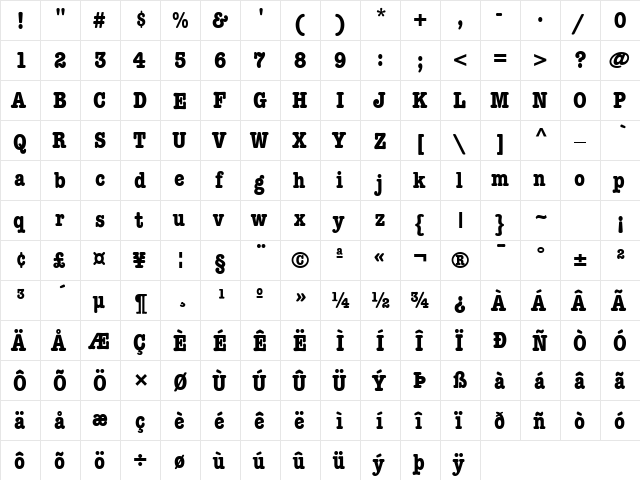
Keyboard CondensedAlt SSi Bold Condensed Alternate Font Preview
Design Context for Keyboard CondensedAlt SSi Typeface
Keyboard CondensedAlt SSi takes a measured approach to typography — its balanced proportions and neutral character make it a reliable workhorse for both digital and print work. The heavy weight commands attention and anchors typographic hierarchies. Its narrow stance lets it pack a punch even in space-constrained designs.